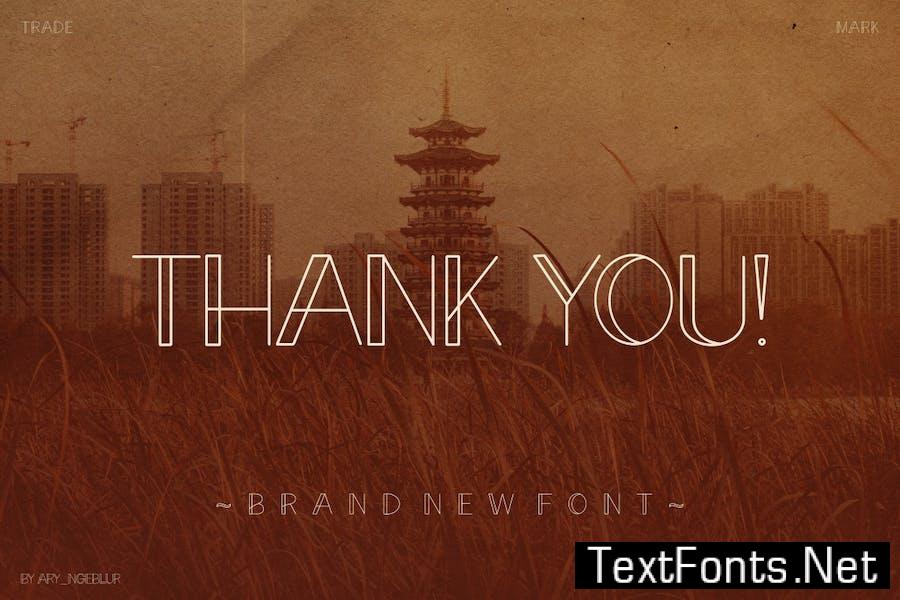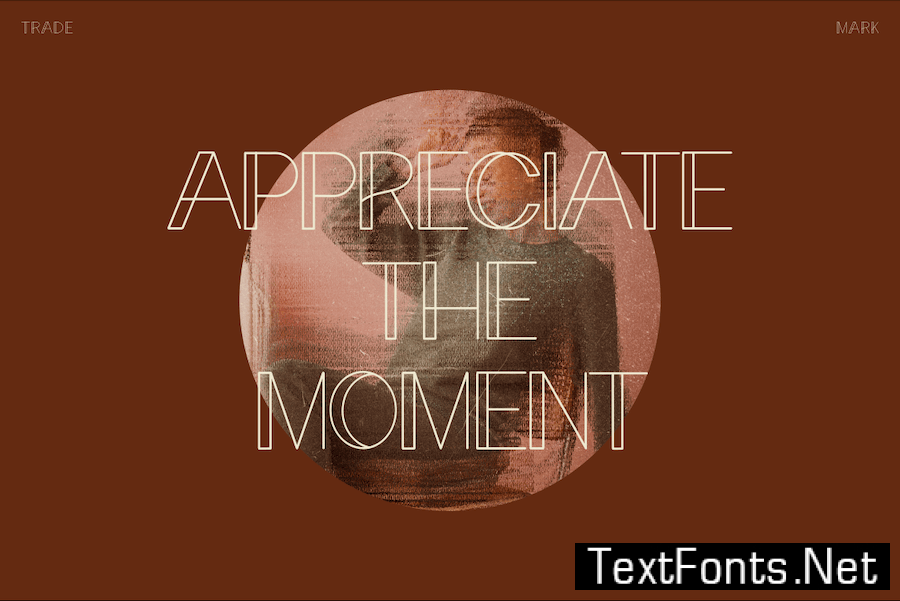
Introducing Chapmano , a cool and elegant modern sans serif font. Elegant font feel. This font gives you a beautiful and modern atmosphere. suitable for t-shirts, posters, book covers, cards, merchandise, etc.